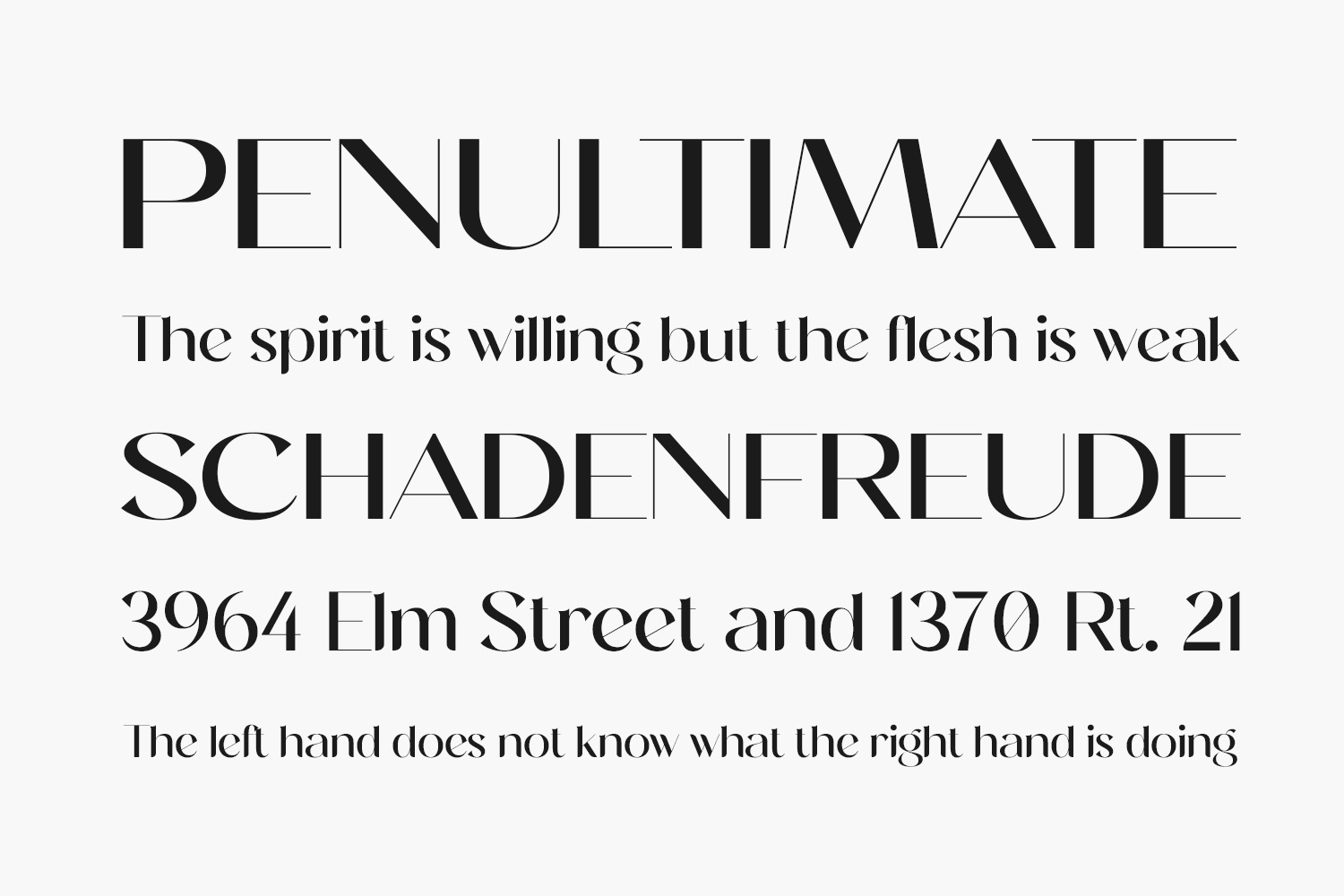
Elevate your designs with the Magistral Honesty Free Font Family. This is a chic and contemporary serif font. It exudes luxury and sophistication. This typeface is a versatile asset to any font library. It capable of transforming any project into a work of art. Whether you’re working on a business project, a personal design, or a high-end advertising campaign, this font family will add a touch of refinement and elegance to your creations. With its modern and stylish serif design, this font is the perfect choice for any project that demands a touch of luxury and class.